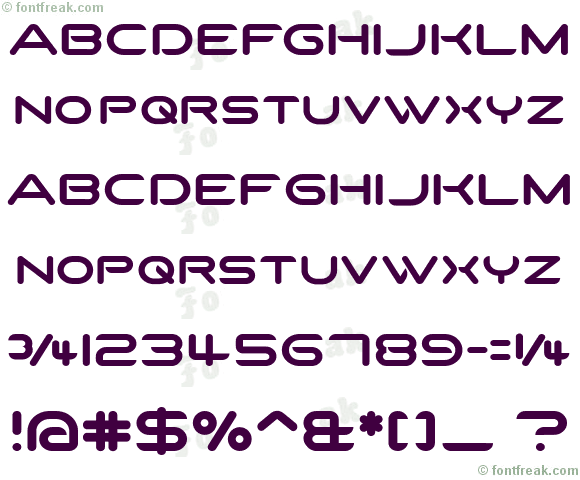
SparTakusRound
About SparTakusRound
SparTakusRound, designed by Peter Wiegel, is a captivating display font that falls under the sans-serif category. This unique typeface features rounded edges, giving it a friendly and approachable appearance. Its consistent stroke weight and minimal contrast create a harmonious visual balance, making it suitable for a variety of applications. The spacing between characters is optimized for legibility, contributing to its overall modern look while maintaining an inviting feel.
The visual characteristics of SparTakusRound make it an excellent choice for a range of creative projects. Its playful yet professional design lends itself well to wedding invitations, where a touch of elegance is desired without being overly formal. Additionally, the font is perfect for movie posters, as its bold presence can effectively capture attention and convey a sense of excitement. Restaurant menus can benefit from SparTakusRound’s clarity, making dish names easy to read while enhancing the overall aesthetic of the menu. Moreover, small business owners will find that this font works wonderfully for promotional materials, as it can create a memorable brand identity.
What sets SparTakusRound apart is its ability to blend a contemporary design with a playful vibe, making it suitable for both formal and casual contexts. Whether you are looking to make a statement in a design project or simply want an eye-catching font, the SparTakusRound font free download offers a distinctive solution that stands out in any setting.